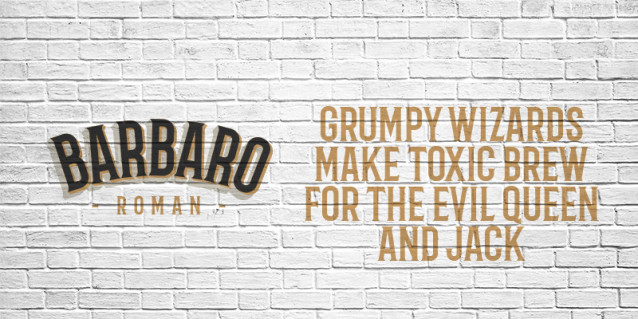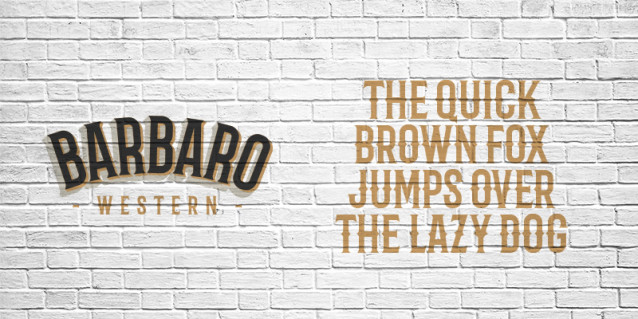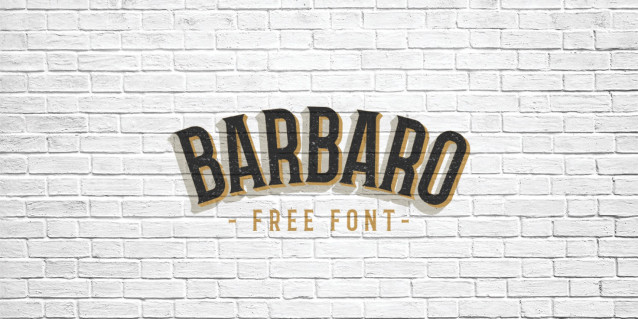
Barbaro Font – This cool vintage style serif custom font is from Iván Núñez. With unique vintage style and 2 alternatives is great for your new creative projects.
Barbaro Font
| Designer Name: | Iván Núñez |
| Classification: | Display Fonts, Serif Fonts |